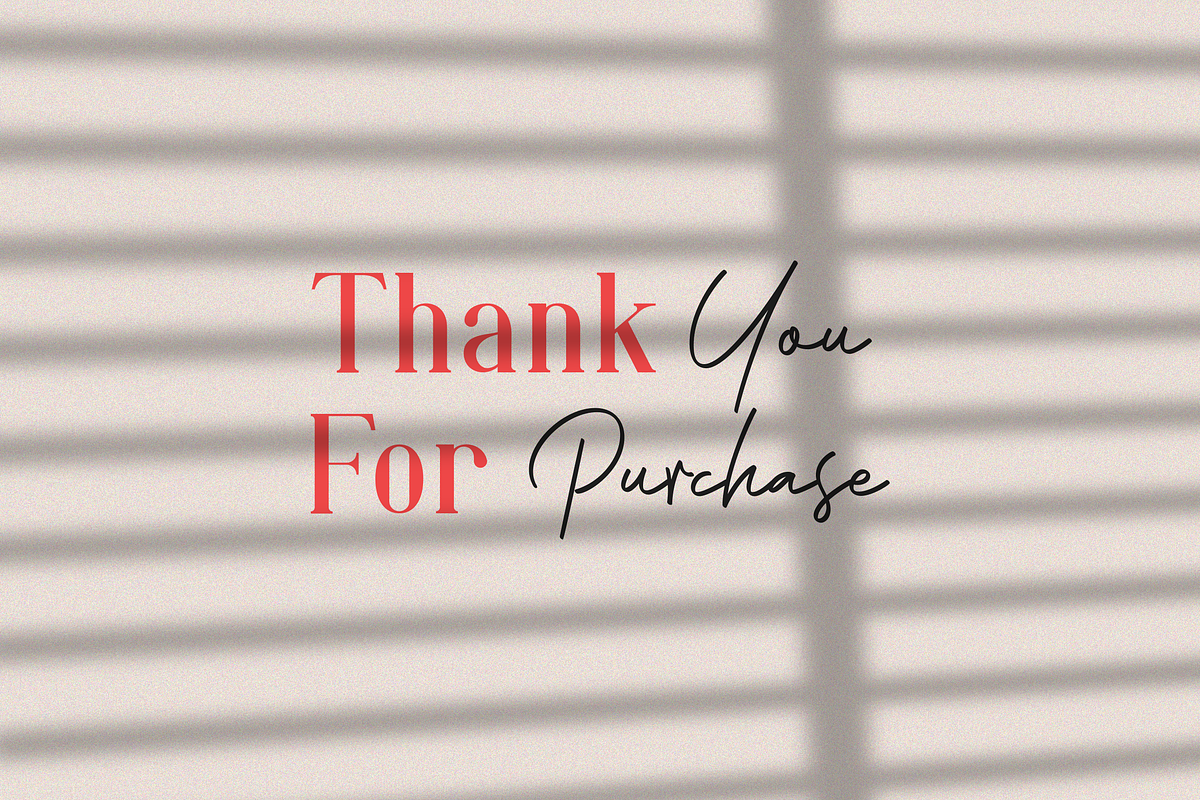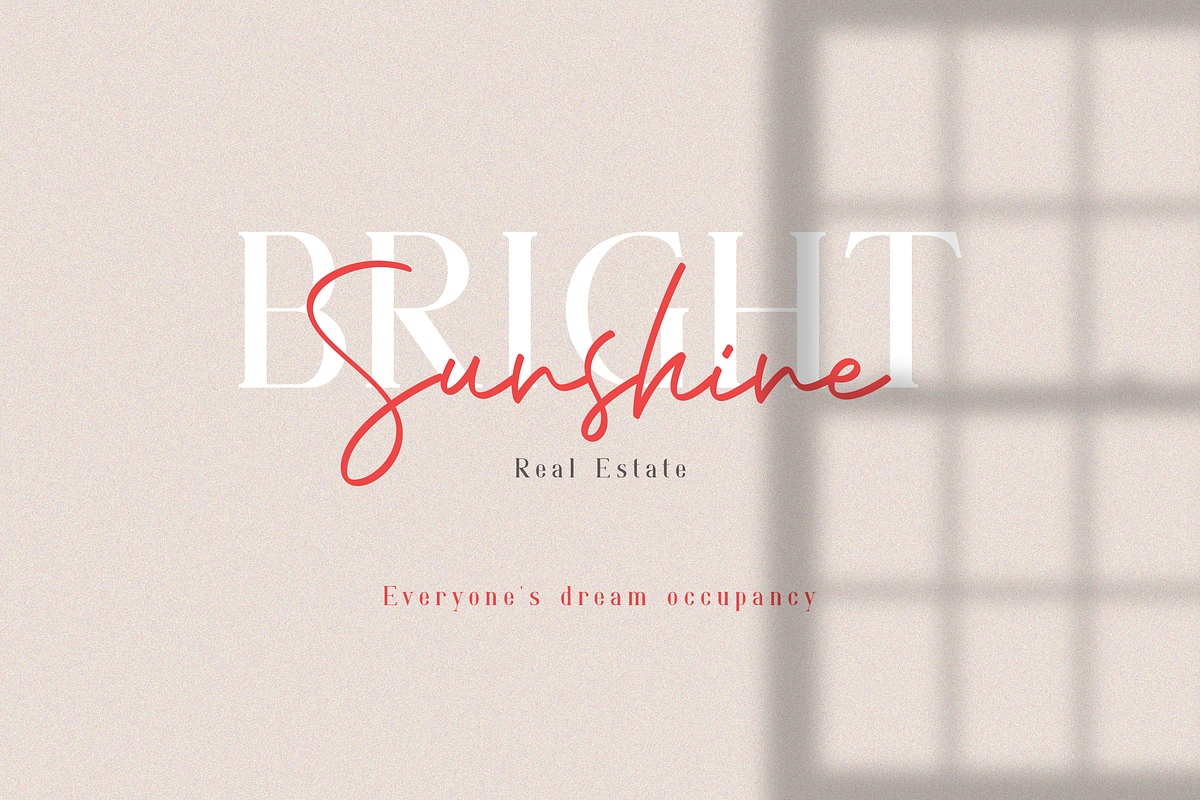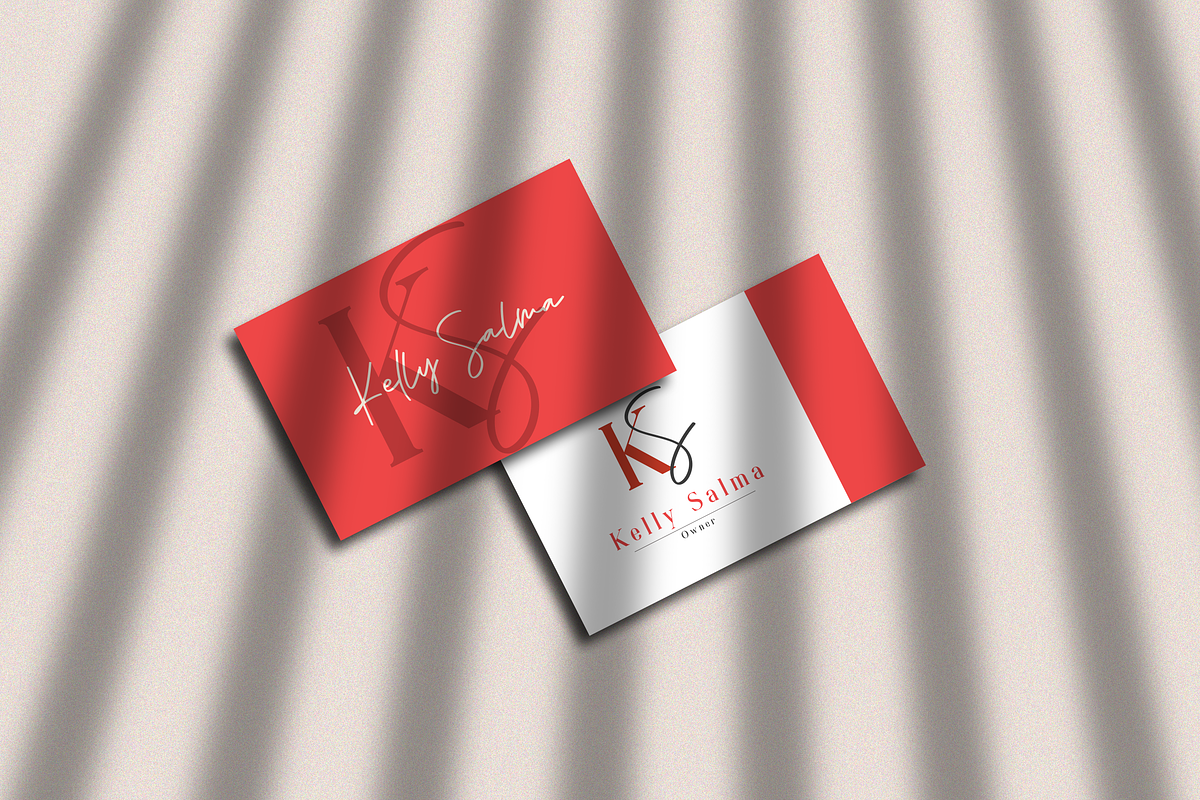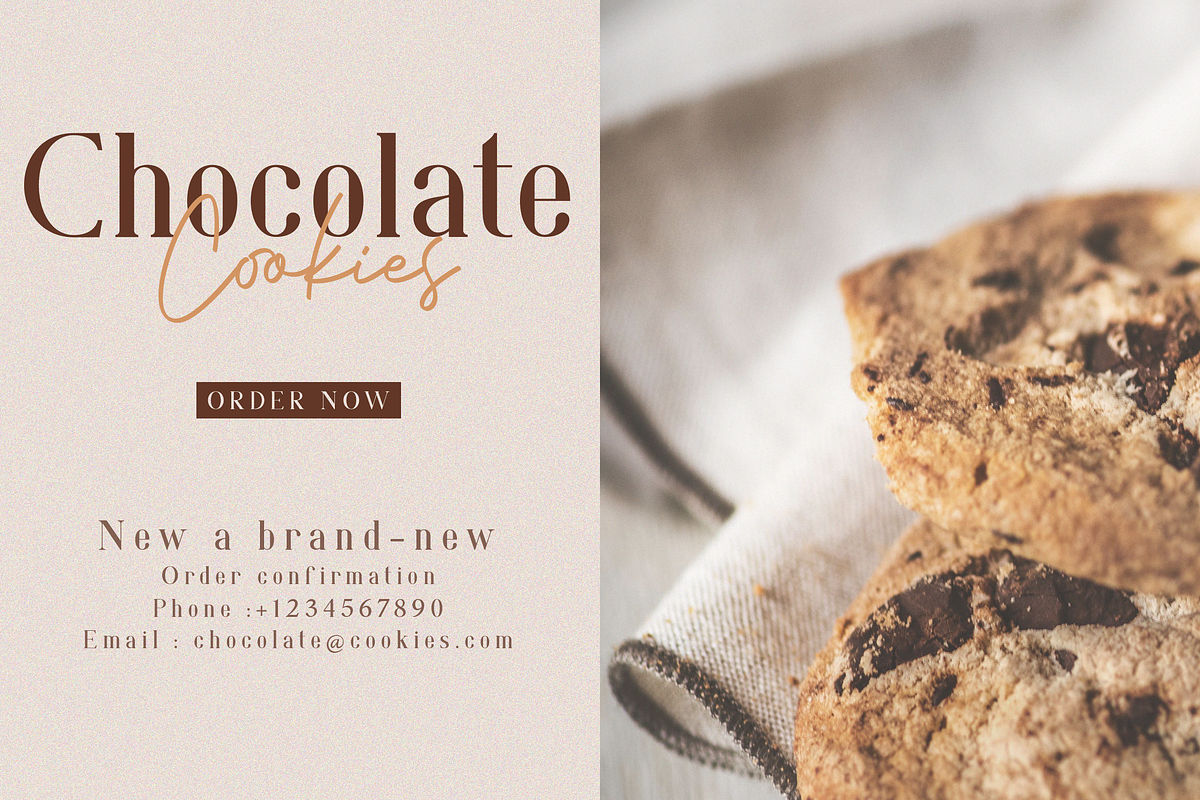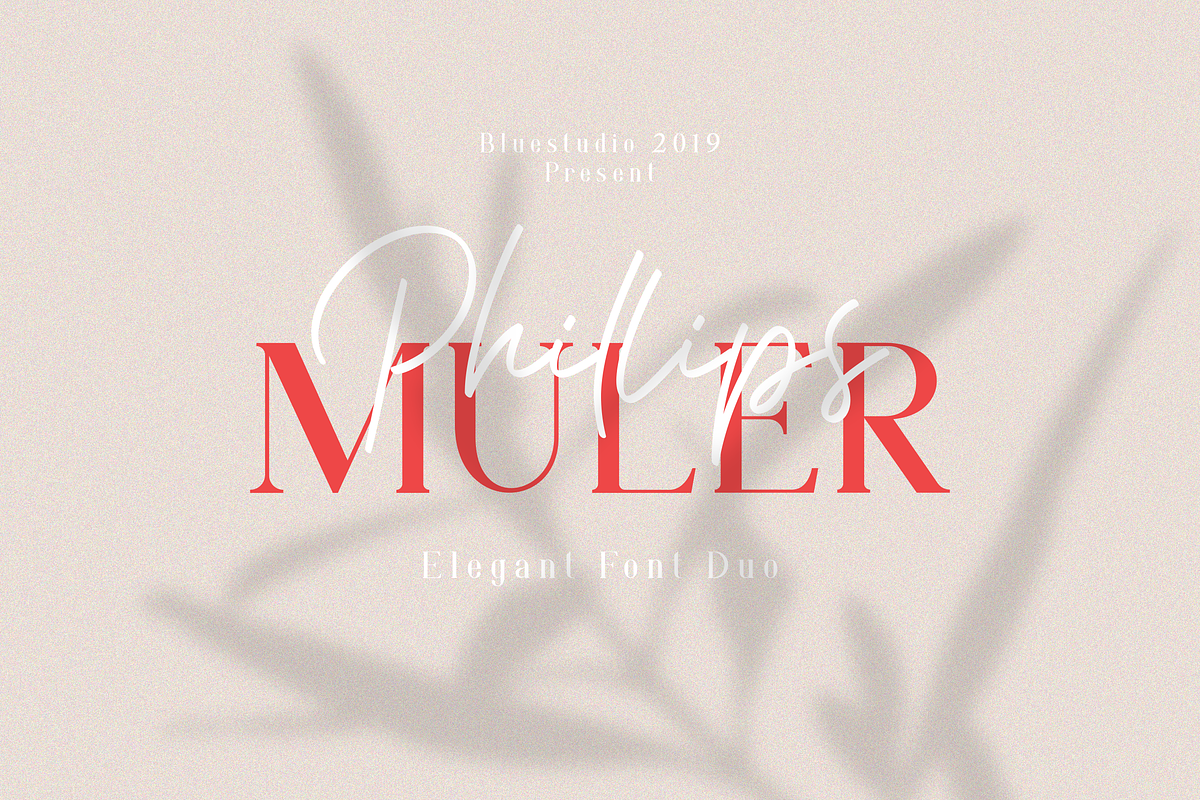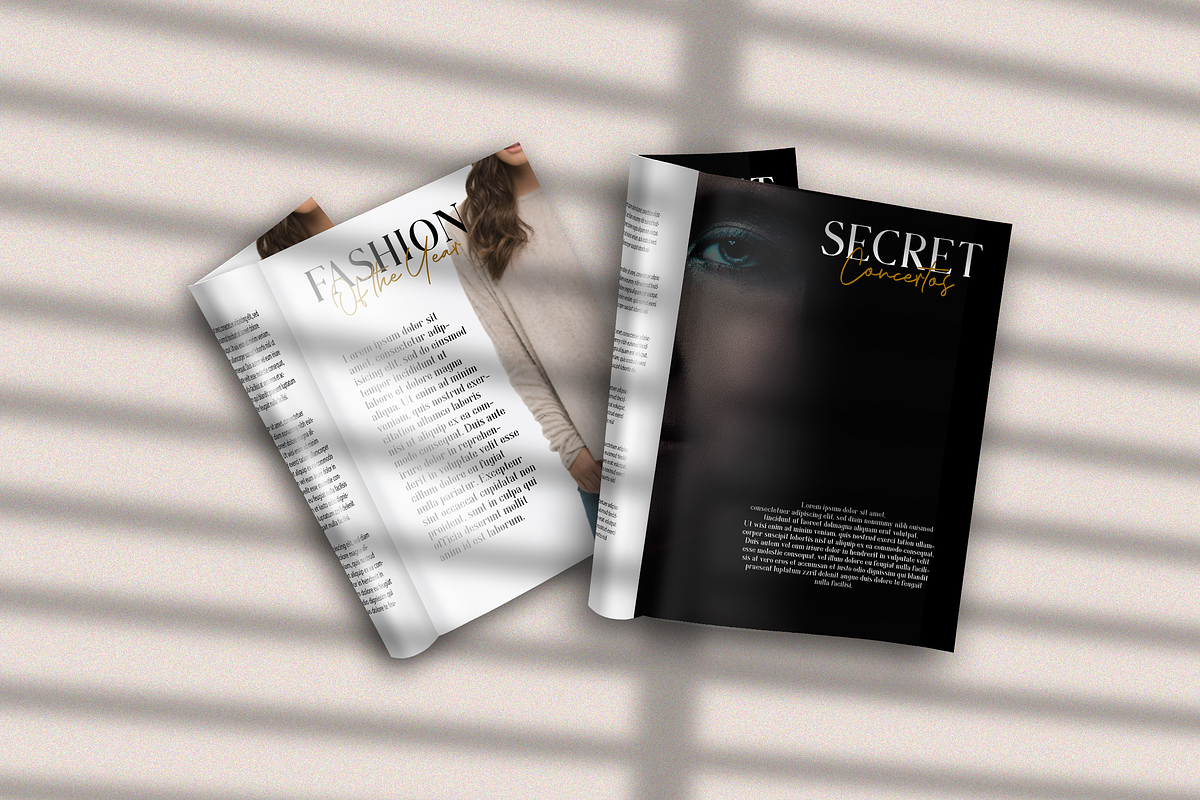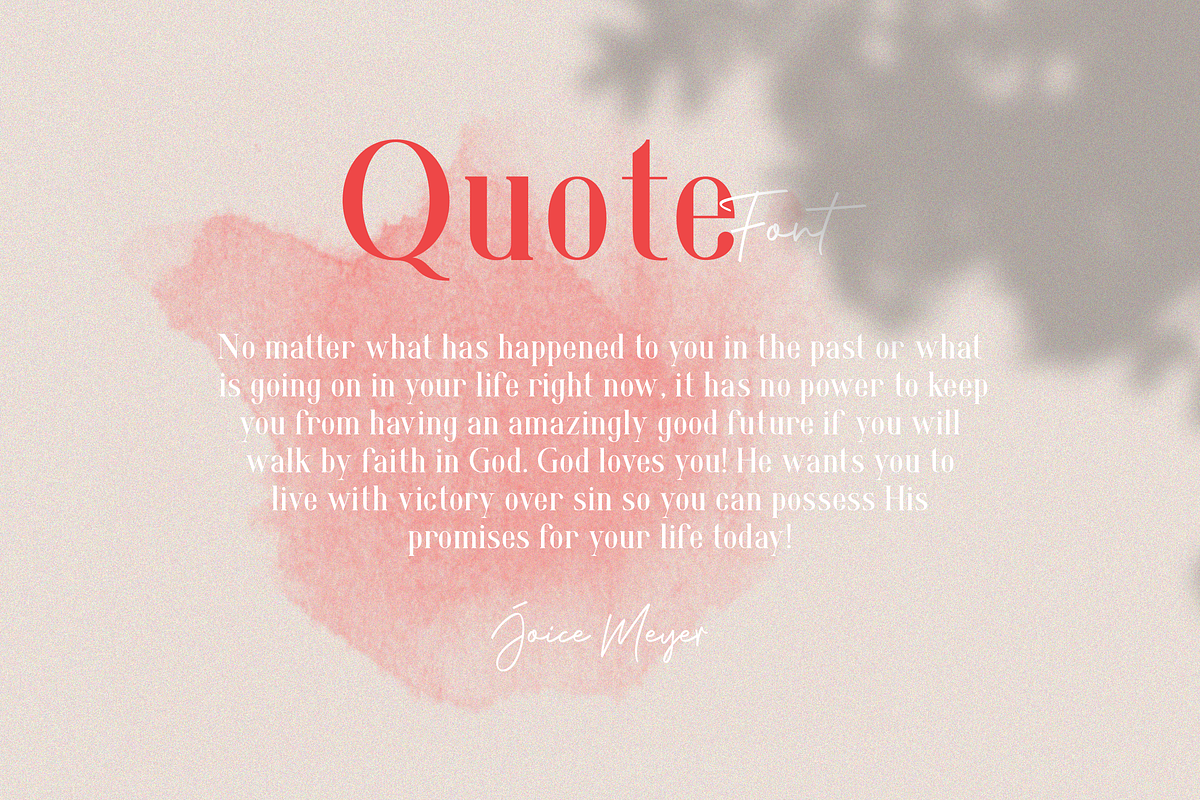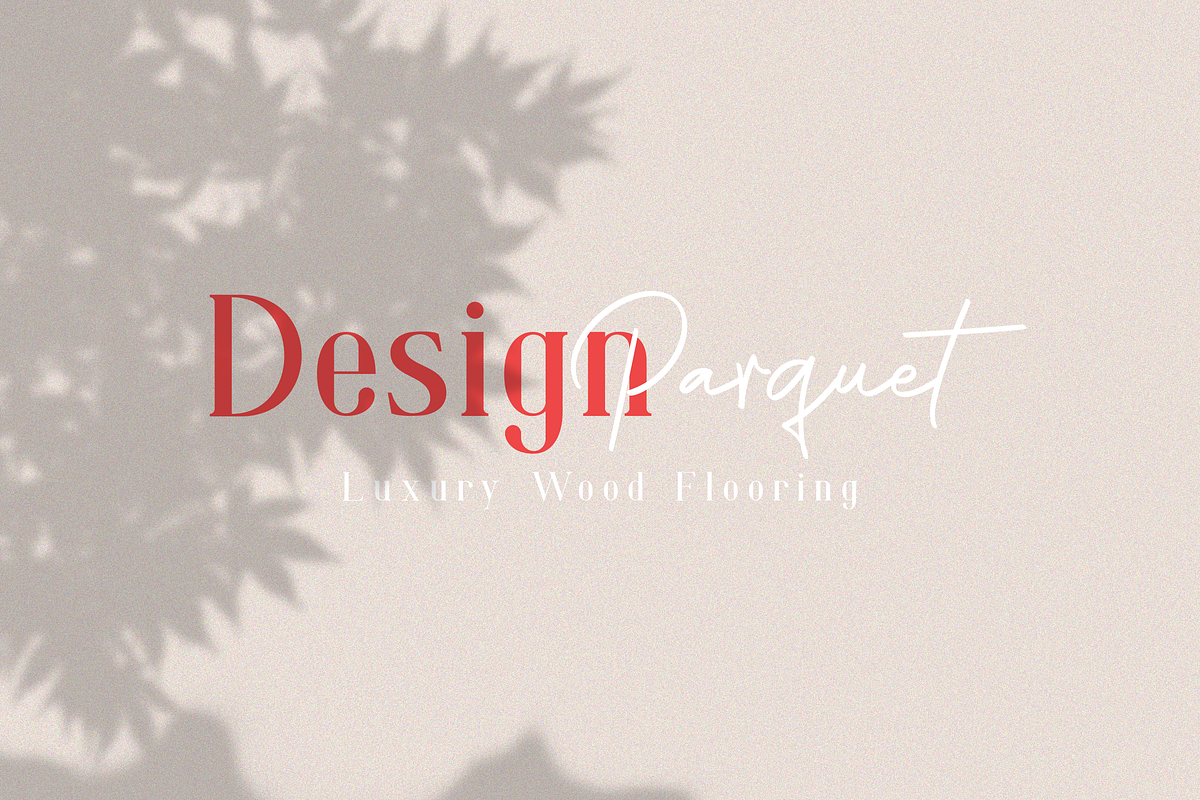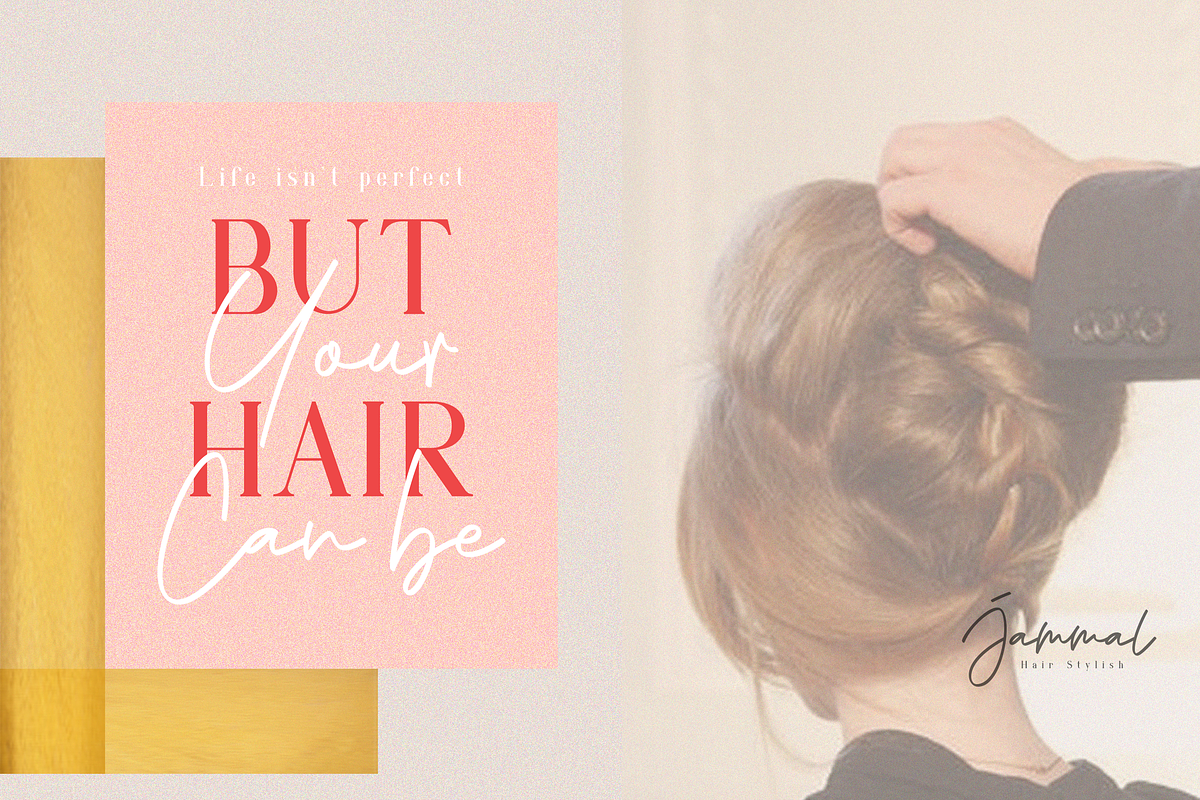
Phillips Muler // Elegant Font Duo
Introducing our latest product Phillips Muler // Elegant Font Duo.
Phillips Muler is a font duo that we created for all your design project needs.
Phillips Muler is a matching font duo, consisting serif font styles and paired with signature fonts that we make like hand scratches, so that it looks natural.
Phillips Muler is perfect for all types of your business projects such as: logo design, business cards, greeting cards, magazines, newspapers, social media design, watermarks and more.
Multilingual support - spread your message globally AÀÁÂÃÄÅCÇDÐEÈÉÌÍÎÏIÌÍÎÏNÑOØÒÓÔÕÖUÙÜÚÛWYÝŸÆßÞþ Encoded PUA Characters